The Best Art Deco Serif Fonts References
The Best Art Deco Serif Fonts References. Every font is free to download! One of the gold standards in modern art deco fonts.
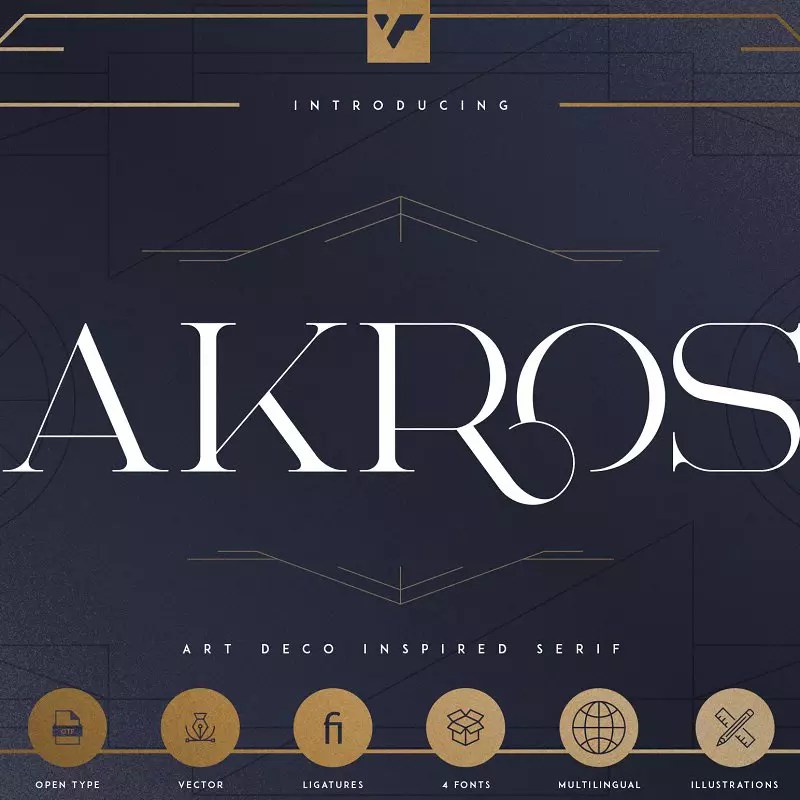
Fonseca | art deco font family pack. Waverly cf combines the tone and flow of art deco with updated, clean letterforms. Art deco fonts discover elegant and modern fonts popularized by the art deco design movement of the 1920s and 30s.
Waverly Cf Combines The Tone And Flow Of Art Deco With Updated, Clean Letterforms.
The Art Deco Bundle Font Is A Unique Collection Of 23 Different Fonts.
Art Deco Fonts Discover Elegant And Modern Fonts Popularized By The Art Deco Design Movement Of The 1920S And 30S.
The style evokes a sense of elegance, jazz, or luxury and is great for. With a beautiful combination of. One of the gold standards in modern art deco fonts.
Art deco & sans serif fonts sort by: The adaptable akros art deco font is ideal for branding initiatives, magazine headings, and product packaging. It is definitely an art deco font, but with a playful and fun vibe to it.